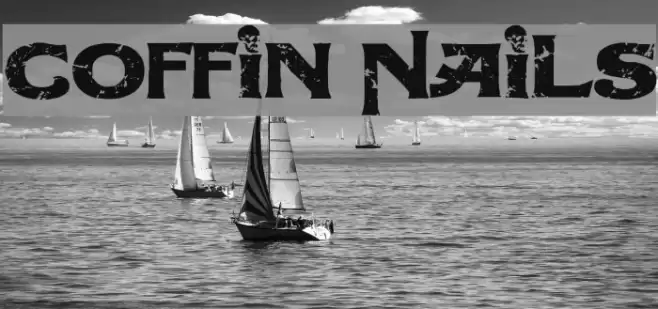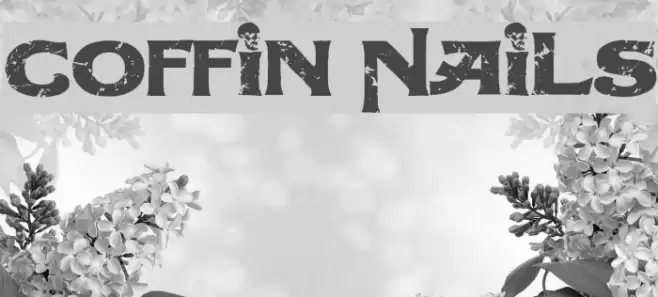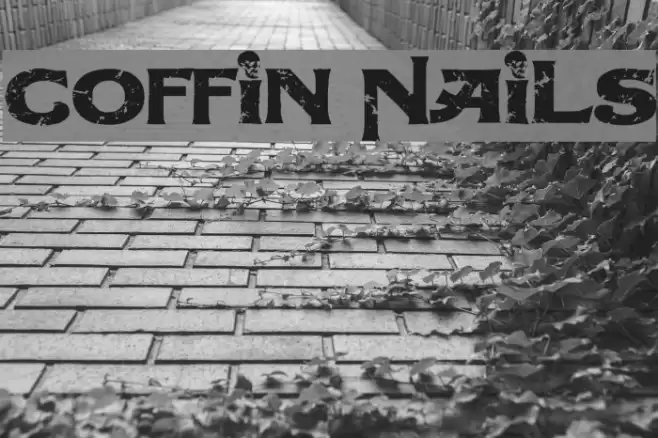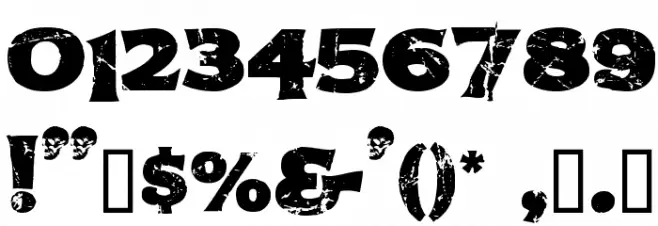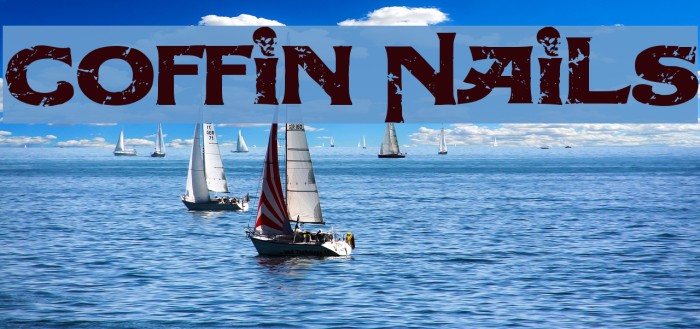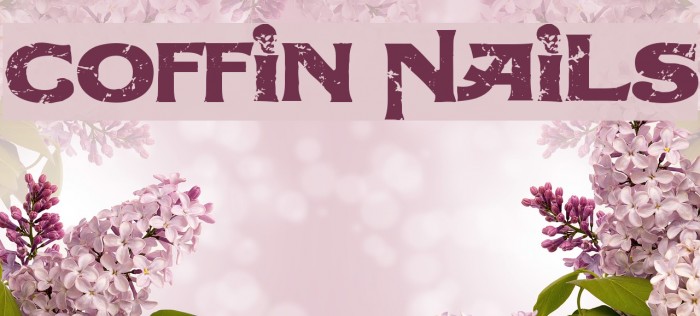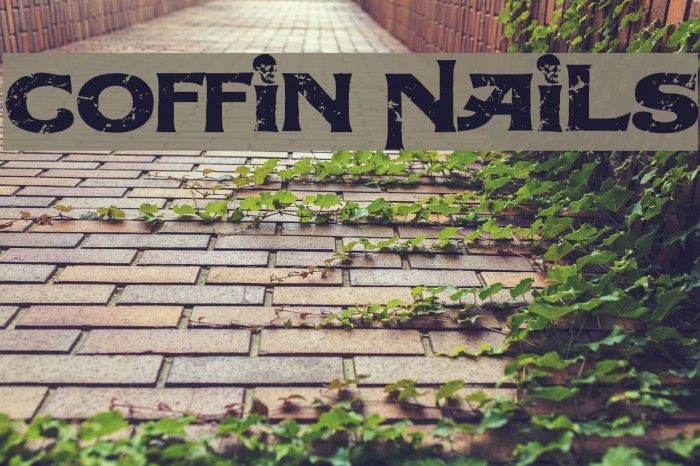
Coffin Nails Font
Coffin Nails Description
This font features a distressed and grungy appearance, characterized by rough edges and a worn texture that gives it a rugged, vintage feel. The uppercase and lowercase letters maintain a consistent style, with bold strokes and uneven surfaces that suggest a weathered look. The numerals and special characters follow the same aesthetic, providing a cohesive design throughout. This font's unique style makes it stand out, offering a bold statement with its dramatic and edgy appearance. The overall design is reminiscent of urban street art or distressed signage, making it suitable for projects that require a strong visual impact.
A distressed, grungy font with a rugged, vintage feel and bold strokes from Uncategorized fonts.
- Proposed Projects: Ideal for album covers, posters, branding for edgy or alternative products, and any design needing a bold, distressed look.
- Overall Style: Vintage